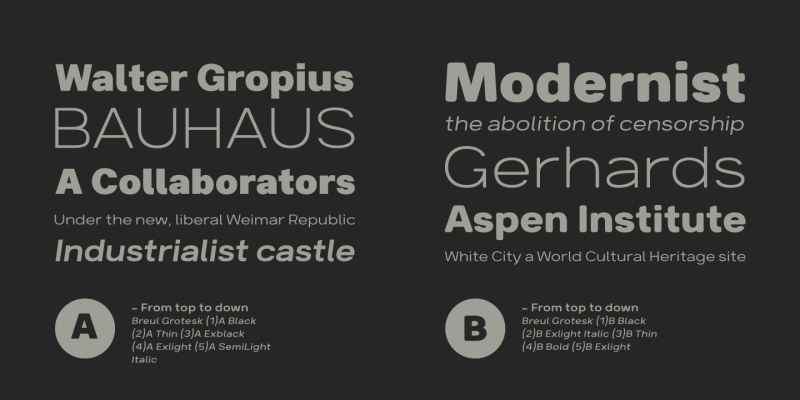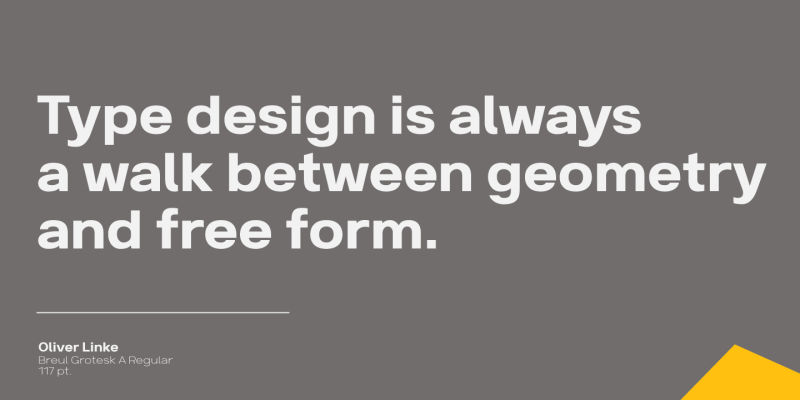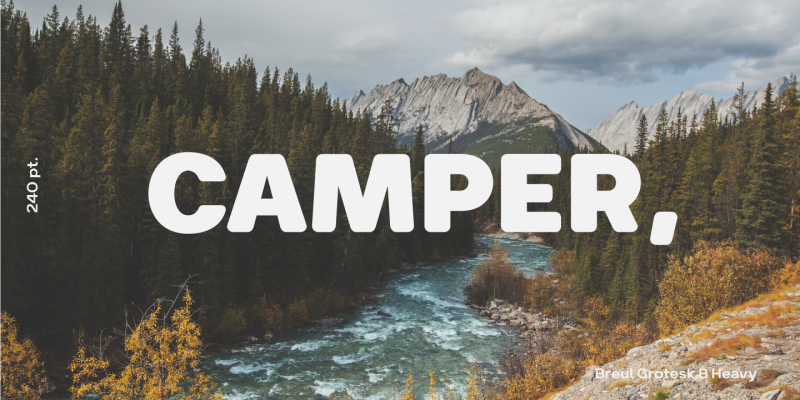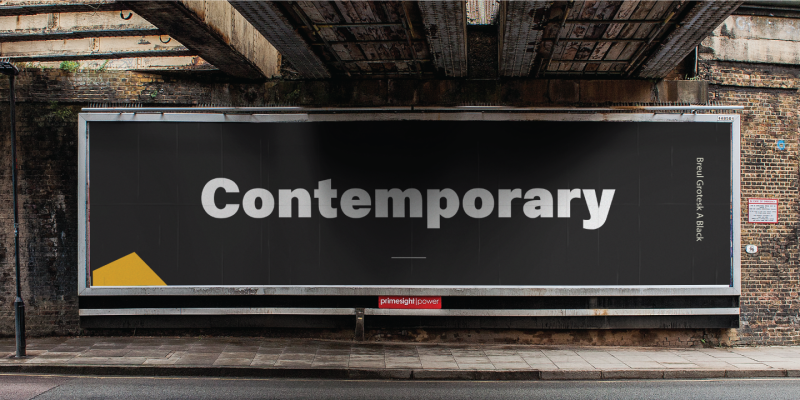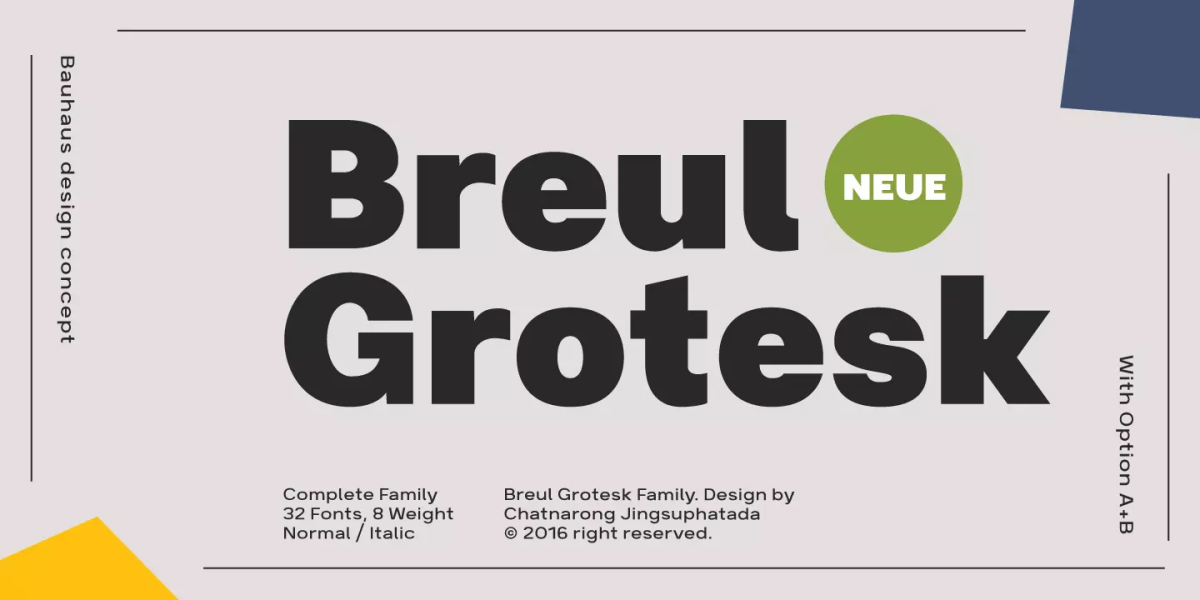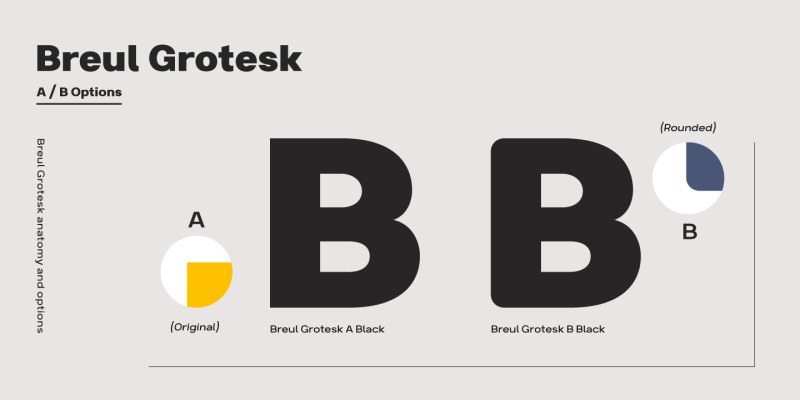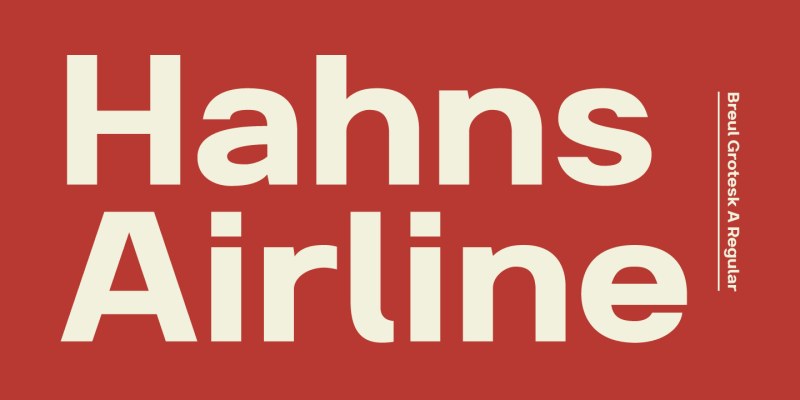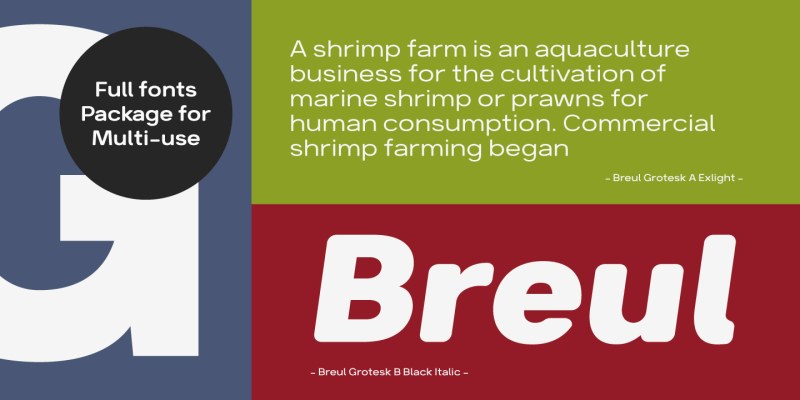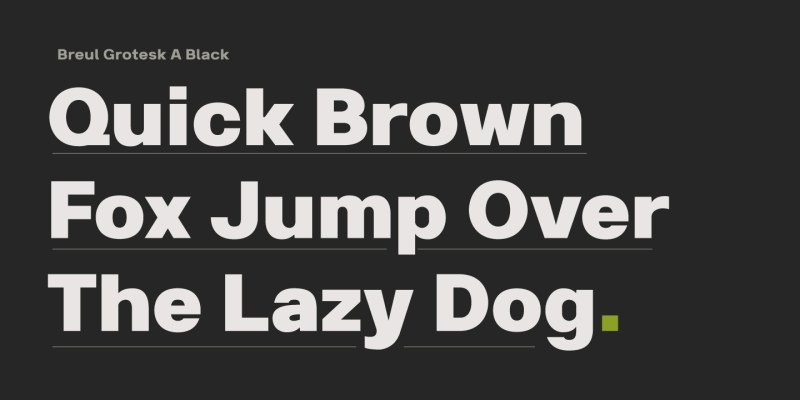
Breul Grotesk Font Family
Taking inspiration from an attempt to marry art with industry of Bauhaus (1919), Brueul Grotesk is classic and straightforward, cutting back superfluous elements. A Sans Serif type, it’s like a design from the Machine Age. It comes in A and B sets to offer end variations—choose the bulbous terminals set if you need a less stern impression. It is then suitable for diverse demands. Brueul Grotesk has A and B sets with 16 weights each, giving you an all-purpose usage typeface.
Breul Grotesk Font Family is a Sans Serif Fonts font that brings a professional and versatile look to your projects. Taking inspiration from an attempt to marry art with industry of Bauhaus (1919), Brueul Grotesk is classic and straightforward, cutting back superfluous elements.